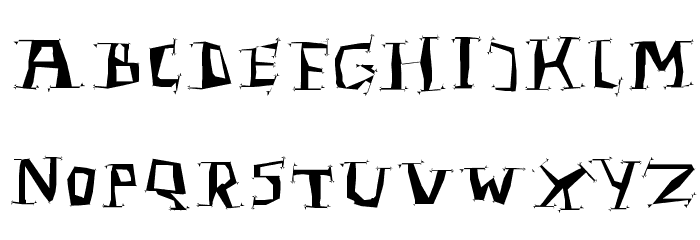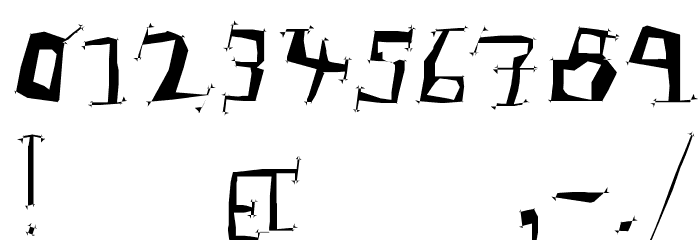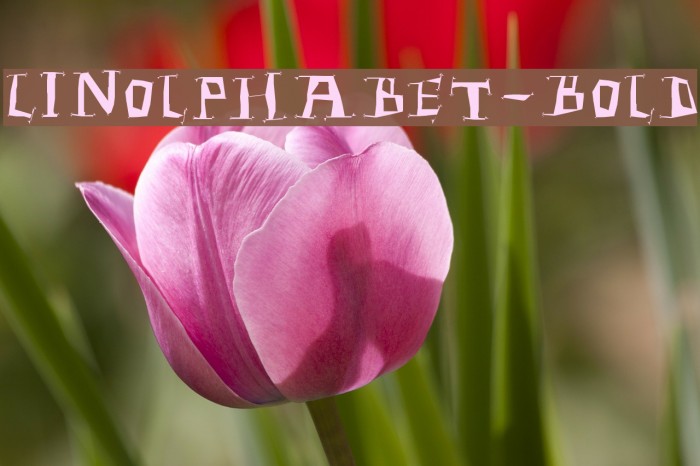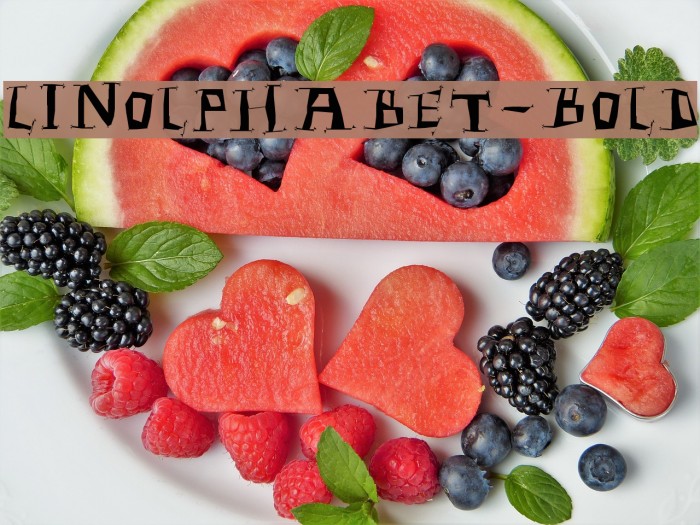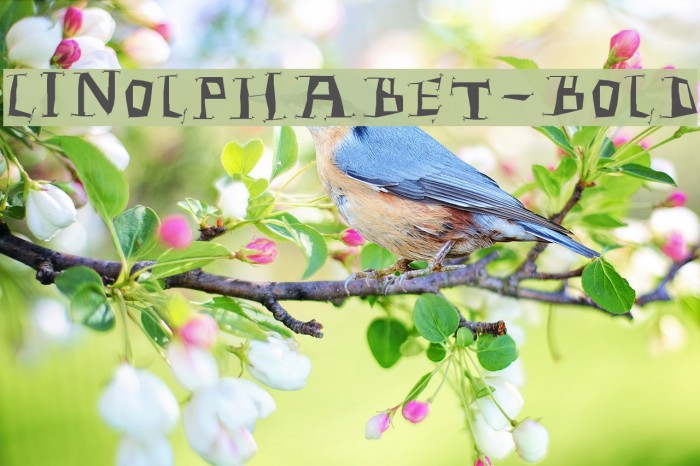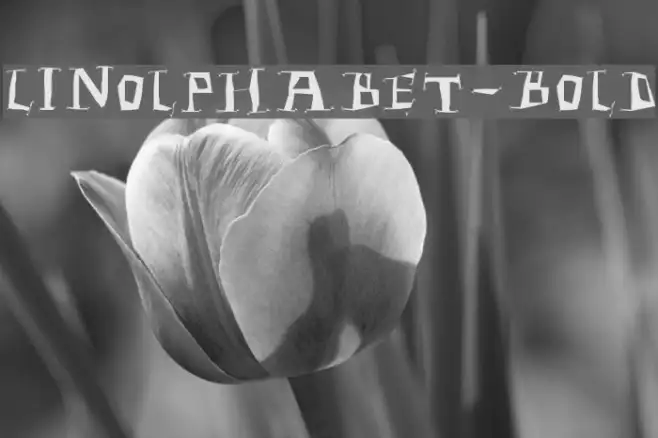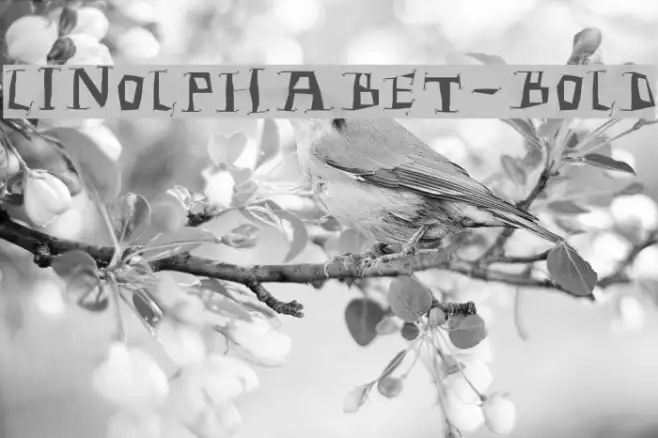
Linolphabet-Bold Font
This font features a bold, angular design with a distinct, edgy appearance. Each character is crafted with sharp, jagged edges, giving it a rugged and dynamic look. The strokes are thick and irregular, creating a sense of movement and energy. The uppercase and lowercase letters maintain a consistent style, while the numerals and special characters complement the overall aesthetic. This font's unique design makes it stand out, suitable for projects that require a strong visual impact.
A bold, angular font with sharp, jagged edges and a dynamic appearance.
- Proposed Projects: Ideal for posters, album covers, branding for edgy products, or any project needing a bold statement.